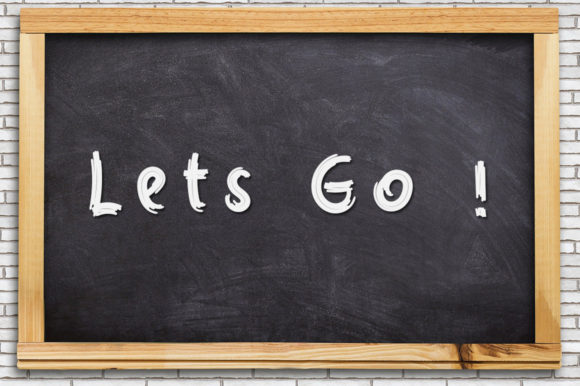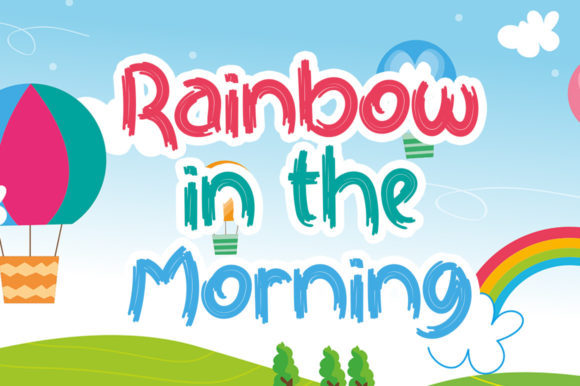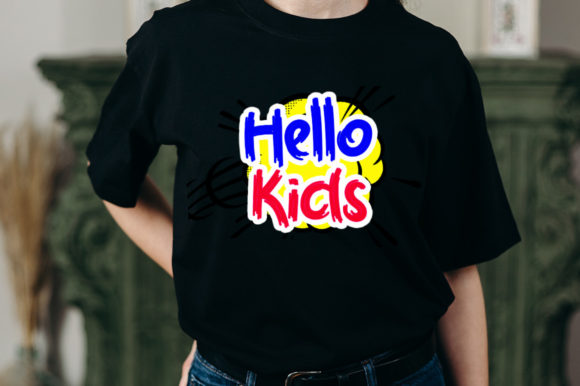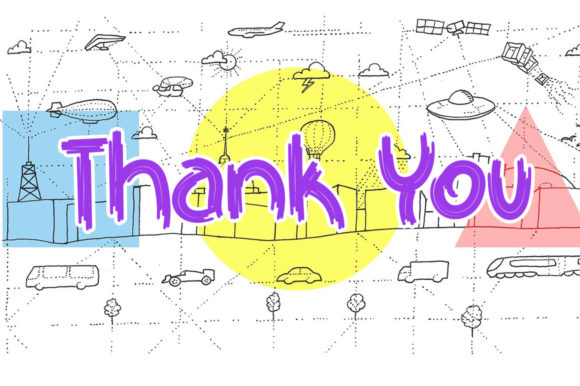
Crayon School Font: A Fresh and Playful Choice for Designers and Crafters
Are you looking for a font that captures the essence of childhood creativity and playfulness? Look no further than the Crayon School Font! This beautiful and sweet decorative font is perfect for designers and crafters who want to add a touch of whimsy to their projects. In this article, we’ll dive into the features and benefits of Crayon School Font, and explore how it can be used to create engaging and fun designs.
A Fresh and Playful Aesthetic
Crayon School Font is a decorative font that exudes a sense of freshness, playfulness, and fun. Its unique and charming design makes it perfect for a wide range of projects, from formal school projects to informal kid’s activity creations. The font’s playful aesthetic is reminiscent of colorful crayons and childlike artwork, making it an excellent choice for designers and crafters who work with kids or create content for children’s products.
Key Features of Crayon School Font
So, what makes Crayon School Font so special? Here are some of its key features:
- Unique and decorative design: Crayon School Font has a one-of-a-kind design that sets it apart from other fonts.
- Playful and fun aesthetic: The font’s playful aesthetic makes it perfect for projects that require a touch of whimsy.
- Fresh and modern look: Despite its playful design, Crayon School Font has a fresh and modern look that works well for both formal and informal projects.
- Multipurpose: This font can be used for a wide range of projects, from school projects to kid’s activity creations.
Use Cases for Crayon School Font
Crayon School Font is a versatile font that can be used for a variety of projects. Here are some use cases to get you started:
- School projects: Crayon School Font is perfect for school projects, such as posters, presentations, and worksheets.
- Kid’s activity creations: This font is great for creating fun and engaging kid’s activity sheets, such as coloring pages, puzzles, and games.
- Party decorations: Use Crayon School Font to create fun and playful party decorations, such as banners, invitations, and party favors.
- Educational materials: This font can be used to create educational materials, such as textbooks, workbooks, and activity books.
Tips for Using Crayon School Font
Here are some tips for using Crayon School Font effectively:
- Pair with other fonts: Crayon School Font pairs well with other fonts, such as sans-serif fonts and script fonts.
- Use bold and bright colors: This font looks great with bold and bright colors, which can add to its playful aesthetic.
- Experiment with different sizes: Crayon School Font can be used at different sizes, from large headings to small body text.
In conclusion, Crayon School Font is a beautiful and sweet decorative font that is perfect for designers and crafters who want to add a touch of playfulness to their projects. Its unique and charming design makes it perfect for a wide range of projects, from formal school projects to informal kid’s activity creations. With its fresh and modern look, Crayon School Font is sure to become a favorite font in your collection.